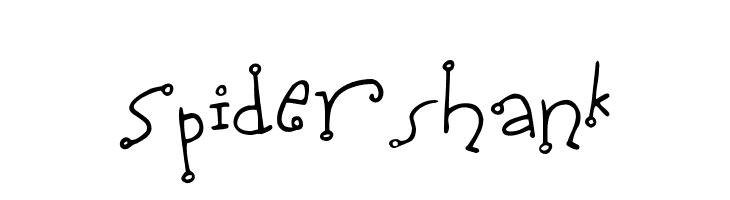
A playful, whimsical font with irregular strokes and dot embellishments.
An elegant script font with flowing curves and intricate details.
A sketched, zebra-striped font with a dynamic and artistic style.
A bold, angular italic font with a futuristic, industrial aesthetic.
A playful, hand-drawn font with bold, dynamic strokes.
A playful, hand-drawn font with a sketch-like, chaotic appearance.
An elegant, flowing script font with graceful curves and sophisticated flourishes.
A playful, handwritten font with tall, narrow letters and a casual style.